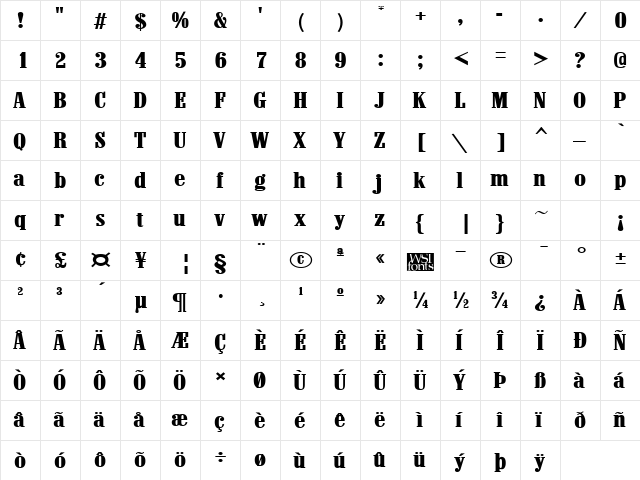
MarlboroWide Regular
Design Context for MarlboroWide Typeface
MarlboroWide takes a measured approach to typography — its balanced proportions and neutral character make it a reliable workhorse for both digital and print work.